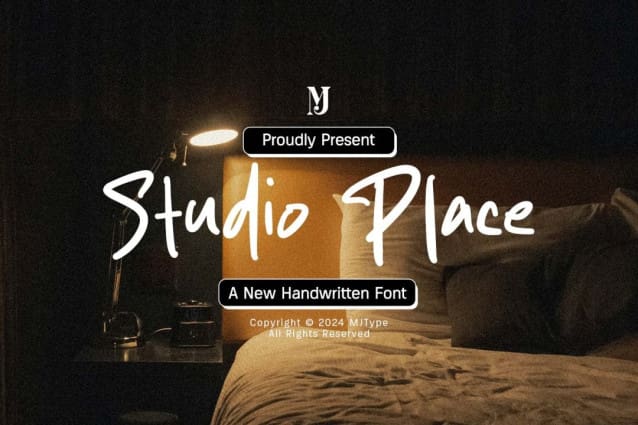
Studio Place Font
Studio Place Font is a simple and friendly handwritten font. Its natural and unique style makes it incredibly fitting to a large pool of designs. The only limit is your imagination!